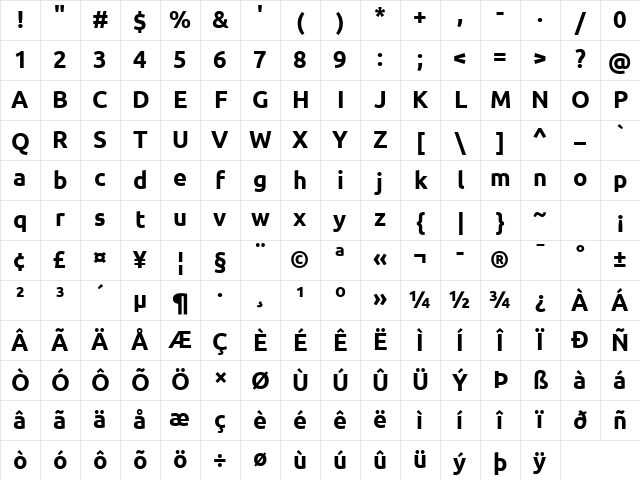
Ubuntu Nerd Font Bold
Foundry: Dalton Maag Ltd
Designer: Dalton Maag Ltd
Design Context for Ubuntu Nerd Font
Ubuntu Nerd Font is a composed and adaptable typeface that performs quietly and consistently across a wide range of design contexts. Its bold stroke weight gives it real presence on the page.